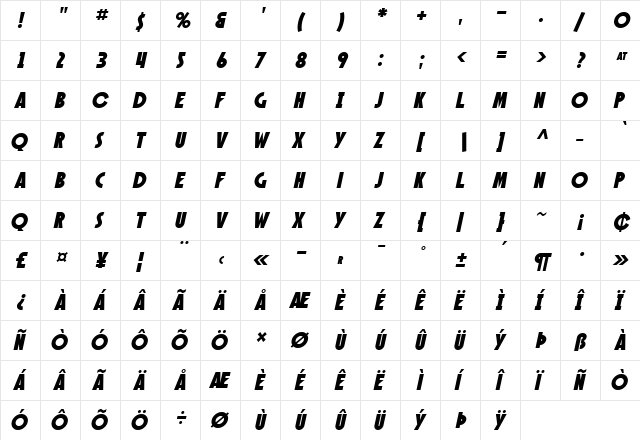
SF Speakeasy Oblique
Design Context for SF Speakeasy Typeface
SF Speakeasy offers clean, dependable letterforms without strong stylistic allegiance, making it a practical choice for designers who need flexibility. The slanted form adds forward momentum and visual energy.
Pro Tip: Use SF Speakeasy for emphasis, pull quotes, and subheadings where its slanted energy can add rhythm to the layout.